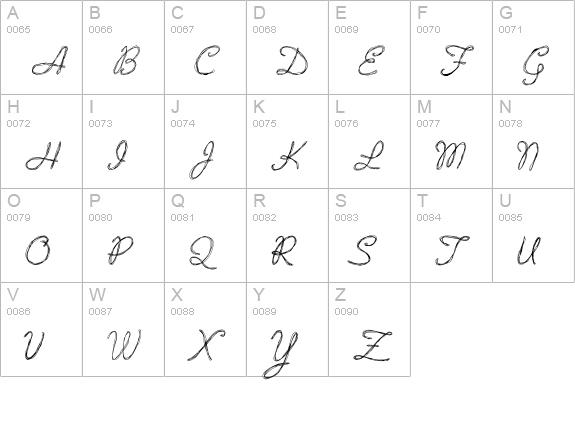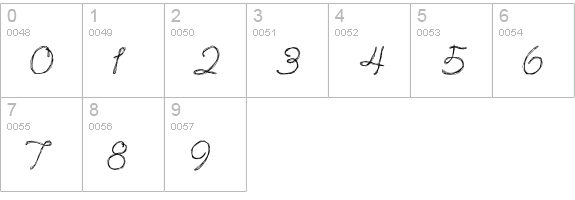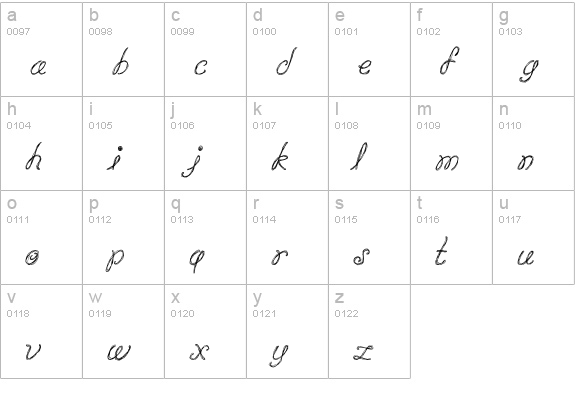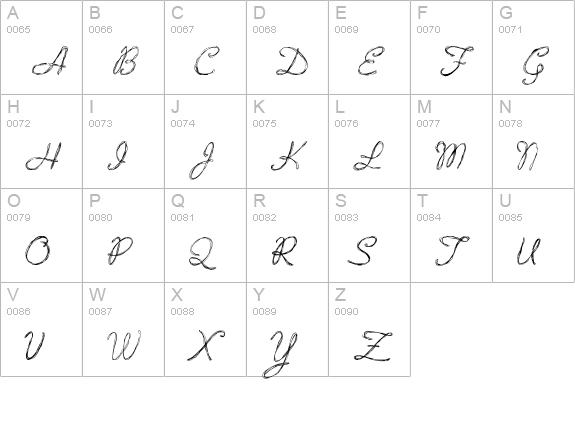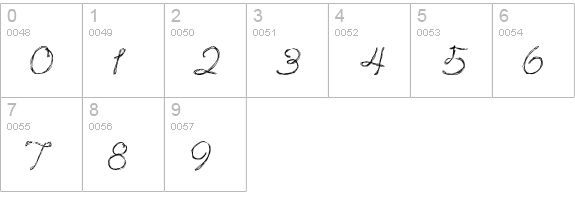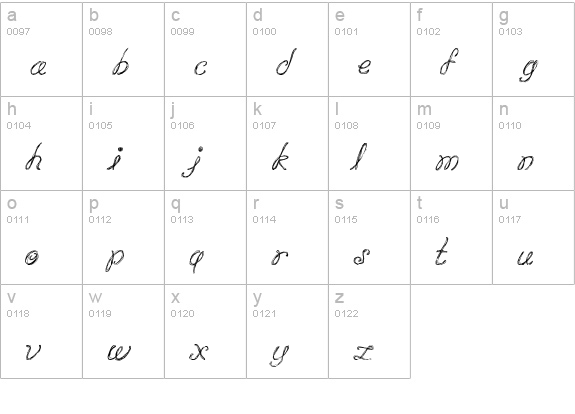
CK Ranch Font Details
Introducing CK Ranch font - a charming and rustic typeface perfect for adding a touch of country flair to your designs. Inspired by vintage signage and hand-painted lettering, CK Ranch exudes warmth and nostalgia. Its unique style makes it a versatile choice for a wide range of projects, from branding and packaging to invitations and social media graphics. The best part? CK Ranch is available for free download at FontsMarket.com! That's right, you can add this delightful font to your collection without spending a penny. So why wait? Bring a bit of the countryside into your designs with CK Ranch today!